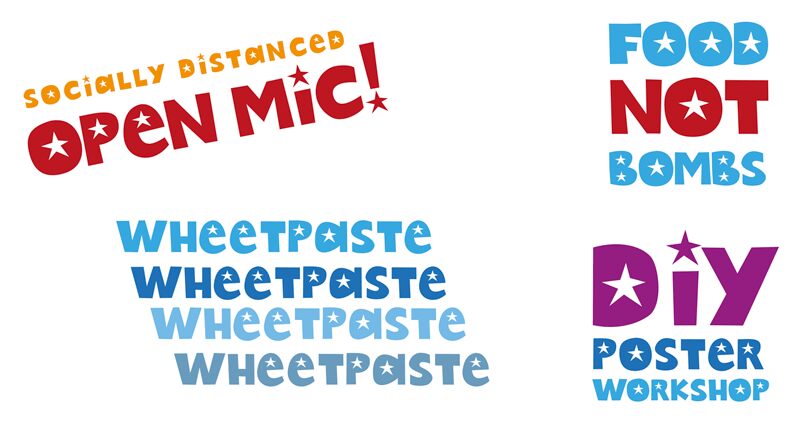
Wheetpaste Regular
Wheetpaste font by Finn Gardiner is a bold cartoon font with prominent visual features. This display font is composed of thick, confident strokes and retro star decorative elements. Its nostalgic appearance captures an energetic visual presence that evokes memories of old posters, merchandise branding, and more.
This free display font is perfect for any bold design projects where attention-grabbing text is needed instantly. Use it in movie titles; packaging for snacks or toys; logos; band posters and album covers; artistic artworks like comics or thumbnails; digital marketing efforts such as landing pages & social media posts even printed newspapers!